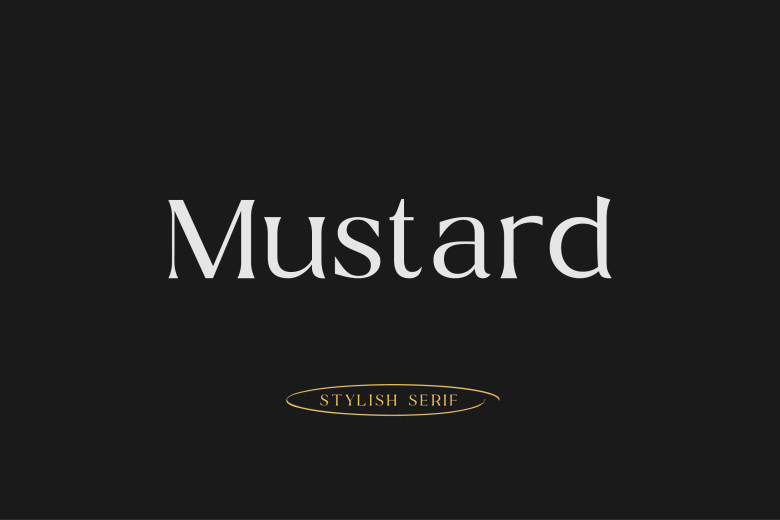
Mustard Font
Mustard is a modern special serif perfect for logos, headlines, titles, minimal layouts, and many more. Its trendy and flexible style will make your posters, covers, and logos classy and stunning.
Mustard Serif Font